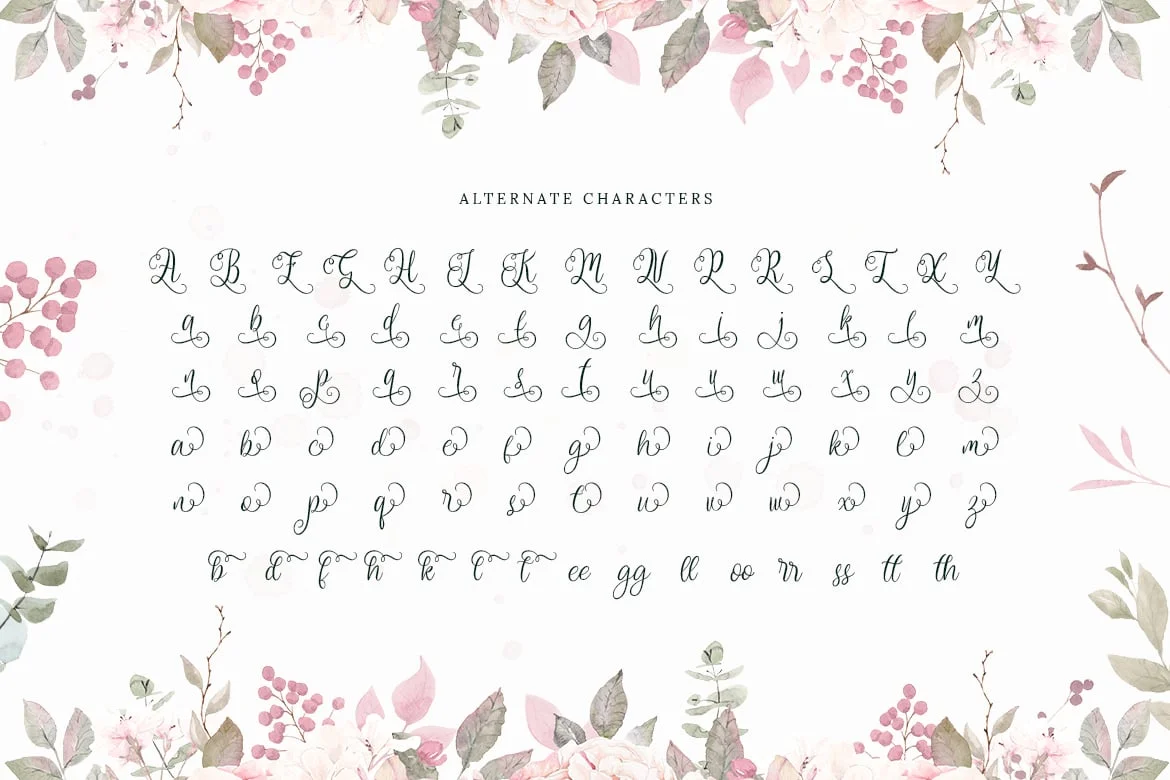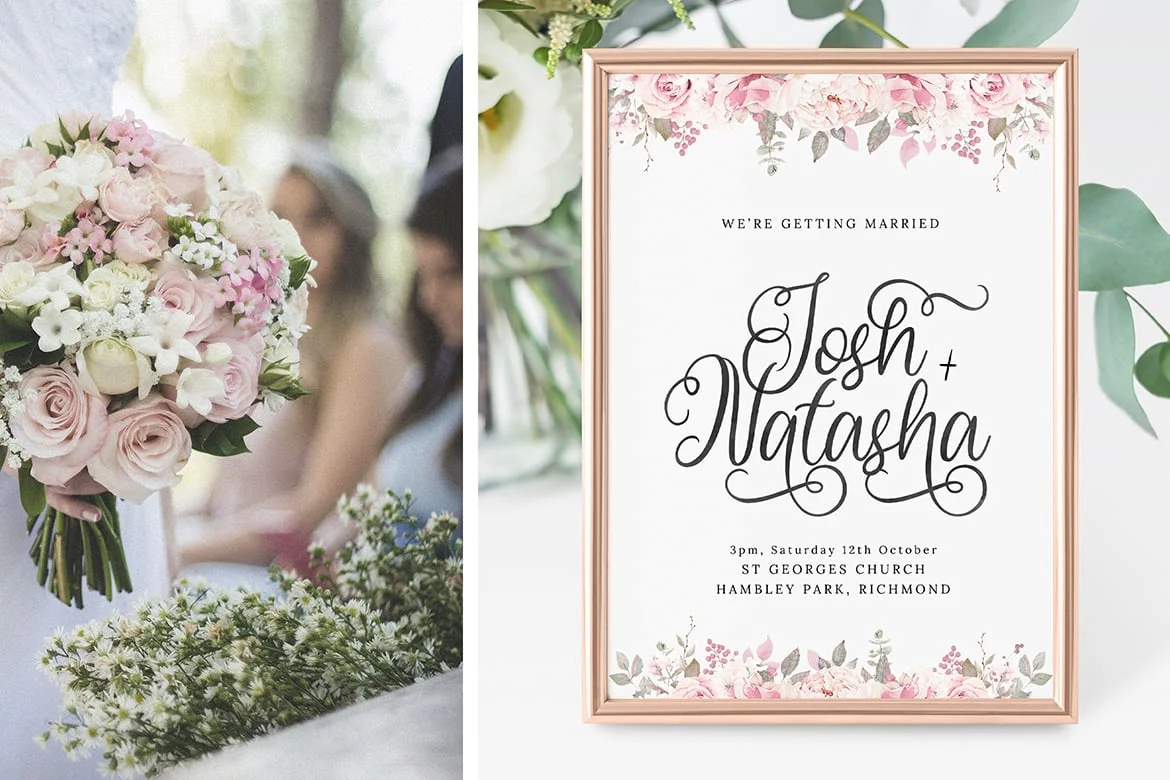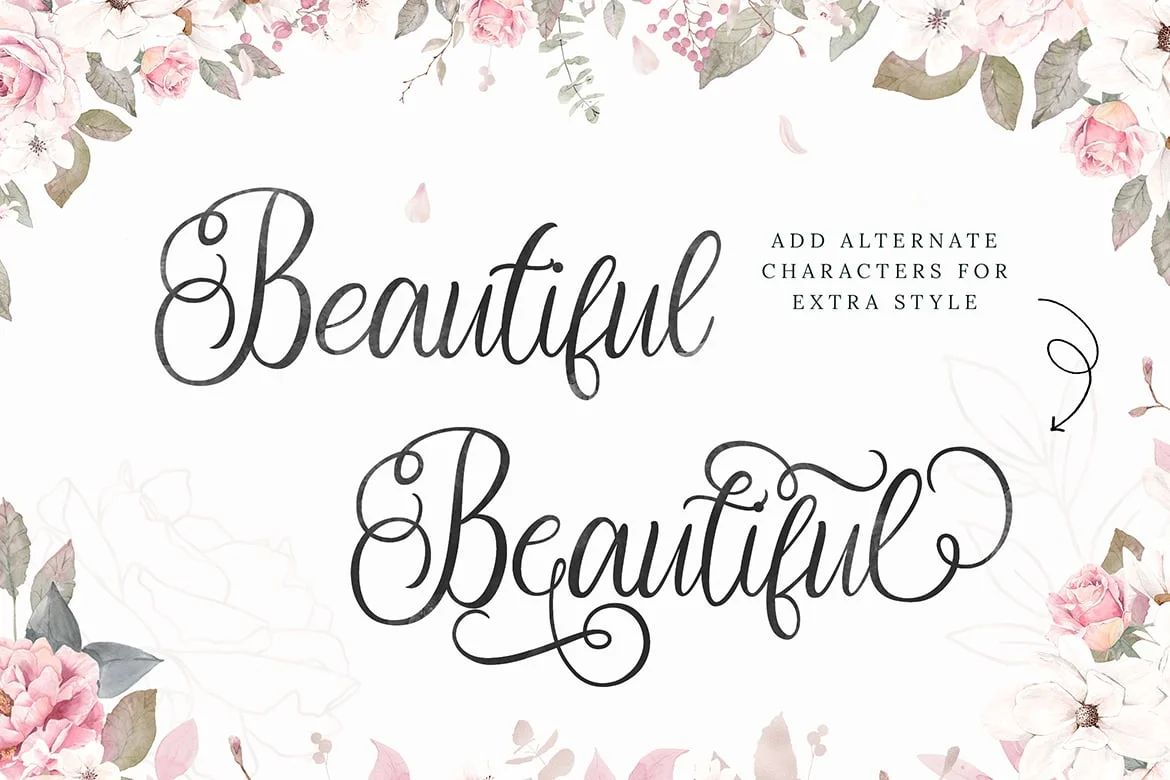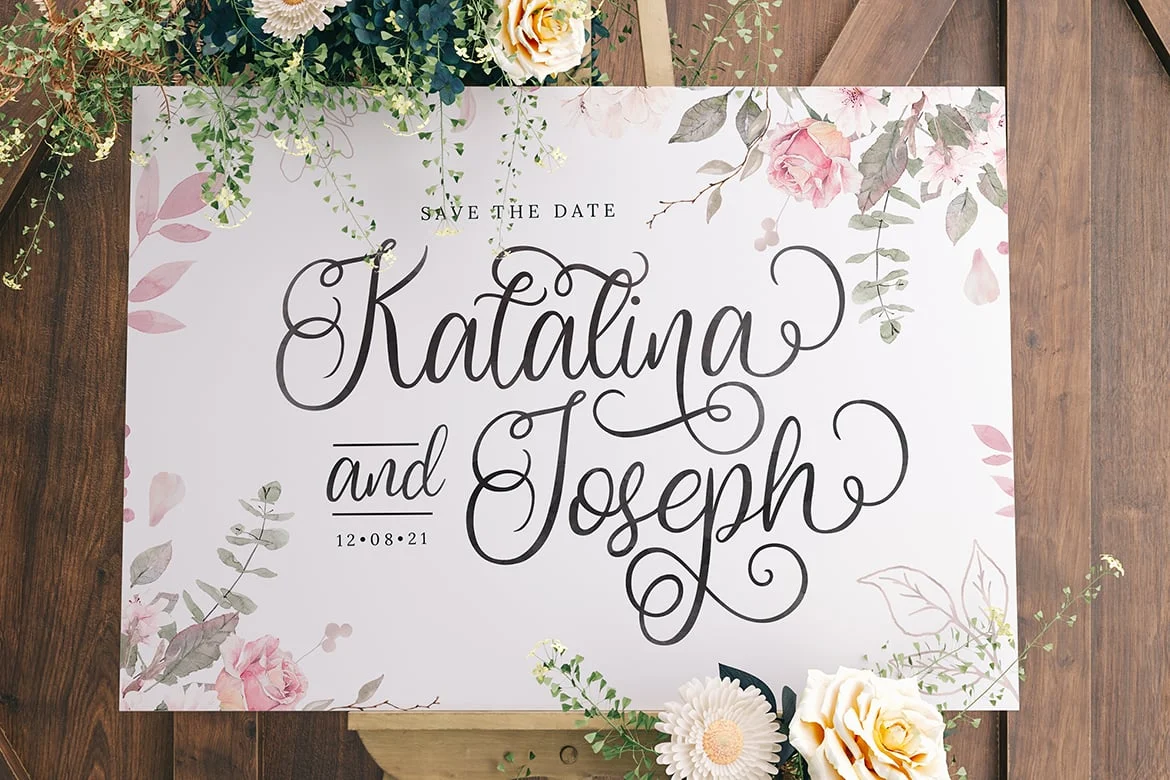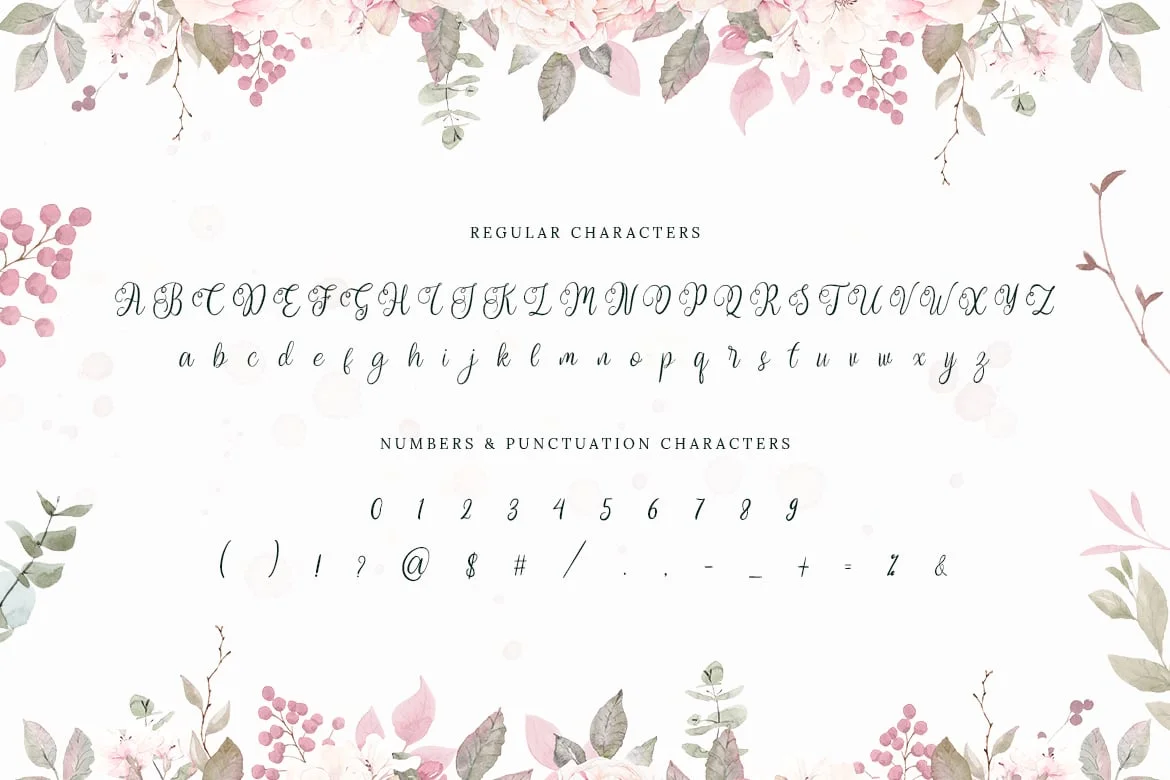
Wedding Script Font
The Wedding Script Font excels in classic design applications including traditional wedding invitations, bridal boutique branding, ceremony venue logos, wedding product packaging, bridal business cards, wedding portfolios, anniversary greeting cards, romantic social media graphics, wedding event signage, and matrimonial marketing materials. Its classic script style makes it perfect for projects requiring timeless elegance that communicates matrimonial beauty and establishes traditional brand positioning with audiences seeking classic wedding experiences and timeless sophistication.
What makes the Wedding Script Font truly exciting is its exceptional ability to capture the timeless beauty and classic elegance of traditional weddings through masterfully crafted letterforms. The font features flowing, matrimonial strokes with traditional flourishes and classic proportions that create a distinctly wedding-focused appearance. Each character displays remarkable attention to bridal detail with elegant curves, matrimonial connections, and ceremonial spacing that give text a classic, hand-lettered quality. The font's wedding character and traditional rhythm create an atmosphere of timeless romance while maintaining elegant sophistication and matrimonial authenticity.
The Wedding Script Font family typically includes regular weight with extensive character coverage, featuring uppercase and lowercase letters, numerals, punctuation marks, and international characters. The typeface often incorporates stylistic alternates, contextual ligatures, and traditional swashes that enhance its signature wedding appeal. These additional elements provide designers with creative flexibility to customize text appearance and achieve more natural-looking matrimonial handwriting that reflects the font's classic and wedding character.
This timeless signature font distinguishes itself through its remarkable balance of traditional charm and contemporary usability. Unlike trendy fonts that may quickly become outdated, Wedding Script Font embraces the power of classic design to create lasting connections with wedding audiences. The font's matrimonial character makes it essential for wedding professionals, bridal brands, and ceremony businesses where creating timeless wedding experiences and classic memories is fundamental to success in traditional wedding markets.
The Wedding Script Font presents designers with an outstanding opportunity to incorporate classic elegance into their wedding projects. From traditional wedding venues to classic bridal brands, this font delivers the timeless signature aesthetic that resonates with couples seeking elegant and traditional wedding experiences. Its classic appeal ensures your designs communicate matrimonial sophistication while the signature styling adds distinctive personality that reflects wedding tradition and timeless elegance in any application requiring classic typography solutions.